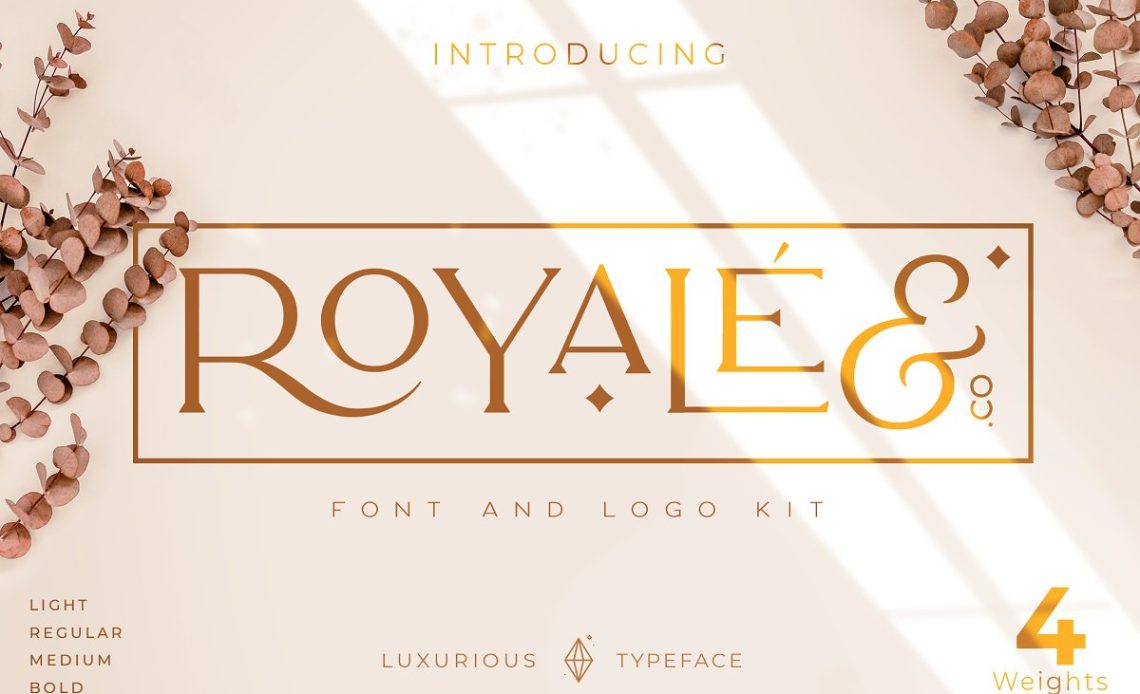
Introducing Royale Luxurious Typeface, the epitome of elegance and sophistication. Created by the talented Kurnia Harahap, this serif font is truly a work of art. With its minimalist design, beautiful ligatures, and a plethora of special alternative glyphs, Royale Luxurious is a font that will captivate your audience.
This font is incredibly versatile, making it perfect for a wide range of projects. Whether you're working on branding projects, designing a logo, creating clothing branding, packaging products, or even designing captivating magazine headers, Royale Luxurious will elevate your creations to new heights.
One of the standout features of this font is its four weights, allowing you to play around with different styles and create a unique visual experience. The all caps feature adds a touch of elegance and sophistication, making your text stand out effortlessly.
But that's not all—Royale Luxurious also offers stylistic alternates and ligatures, giving you the freedom to experiment and create truly eye-catching designs. The numerals and punctuation are meticulously crafted, ensuring that every detail is perfect.
No matter what language you're working with, Royale Luxurious has got you covered. With multilingual support and accented characters, you can confidently use this font for projects across the globe.